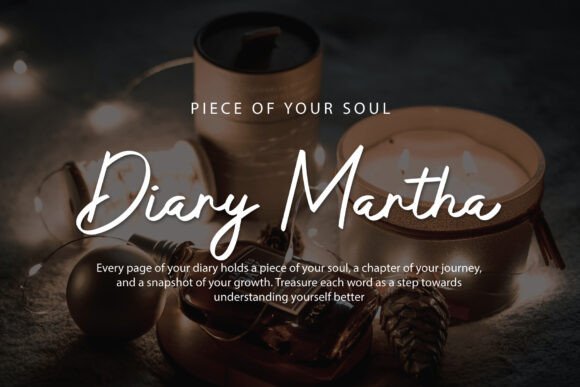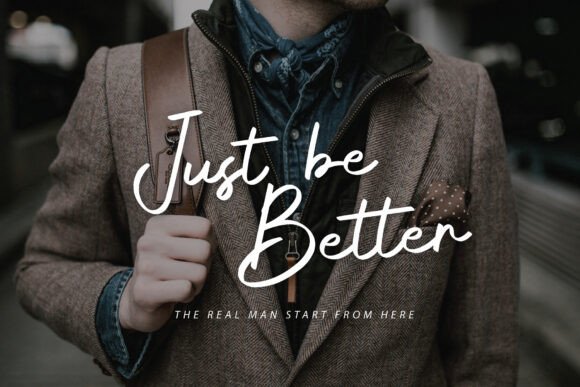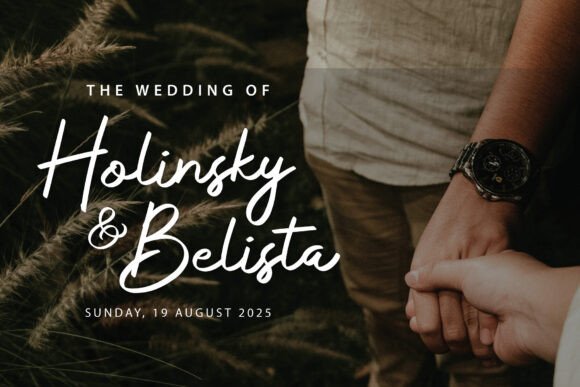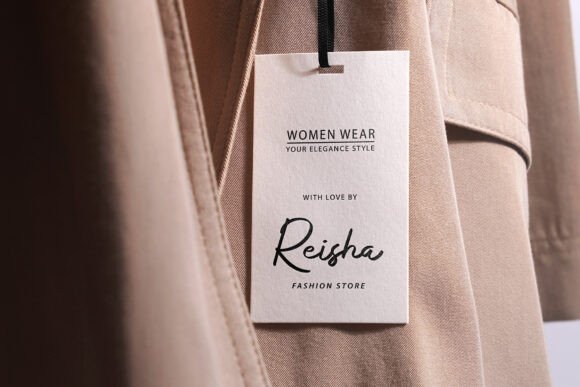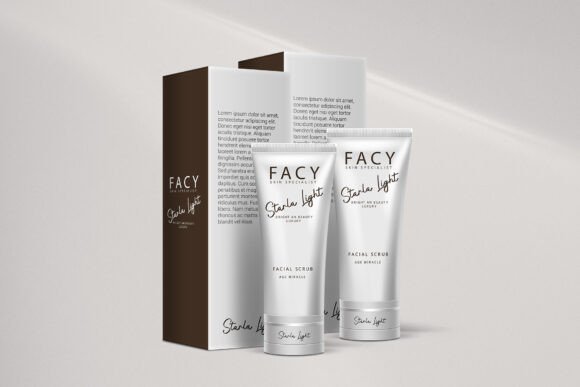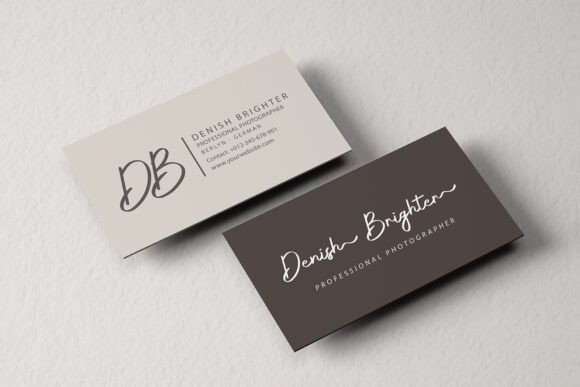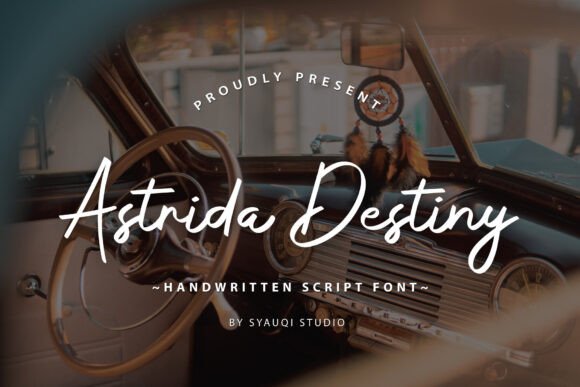
Astrida Destiny Font: Elevate Your Designs with Timeless Elegance
Are you a designer, creative, or business looking for a script font that embodies sophistication, elegance, and versatility? Look no further than Astrida Destiny, a stunning new script font that combines the best of traditional calligraphy with modern flair. In this article, we’ll introduce you to the Astrida Destiny font, exploring its features, benefits, and uses, and show you how it can elevate your design projects to new heights.
Introducing Astrida Destiny: A Masterpiece of Script Calligraphy
Astrida Destiny is a beautiful script font designed with meticulous attention to detail, blending fluid, organic strokes with a touch of modernity. This typeface seamlessly merges timeless elegance with contemporary sophistication, making it perfect for a wide range of design applications. Whether you’re creating wedding invitations, branding materials, elegant signage, or editorial layouts, Astrida Destiny is the ideal choice for designers and crafters seeking to add a touch of luxury and exclusivity to their work.
Key Features of Astrida Destiny Font
- Timeless Elegance: Astrida Destiny boasts classic, refined letterforms that evoke a sense of serenity and sophistication.
- Versatility: This script font is highly versatile, suitable for a wide range of design projects, from wedding invitations to editorial layouts.
- Modern Flair: Astrida Destiny features a touch of modernity, making it perfect for designers seeking to create contemporary, stylish designs.
- Fluid Strokes: The font’s fluid, organic strokes create a sense of movement and elegance, adding a touch of refinement to any design.
Benefits of Using Astrida Destiny Font
So why choose Astrida Destiny for your design projects? Here are just a few benefits of using this stunning script font:
- Elegance and Sophistication: Astrida Destiny adds a touch of luxury and exclusivity to any design, making it perfect for high-end branding, wedding invitations, and editorial layouts.
- Readability: The font’s clear, refined letterforms ensure excellent readability, even at small sizes.
- Customization: Astrida Destiny is highly customizable, allowing you to experiment with different colors, textures, and design elements to create unique and eye-catching designs.
- Time-Saving: With Astrida Destiny, you can create stunning designs quickly and easily, saving you time and effort.
Uses of Astrida Destiny Font
Astrida Destiny is an incredibly versatile font, suitable for a wide range of design applications. Here are just a few ideas to get you started:
- Wedding Invitations: Create beautiful, elegant wedding invitations that set the tone for a luxurious and unforgettable celebration.
- Branding Materials: Use Astrida Destiny to create stunning branding materials, such as logos, business cards, and letterheads, that exude sophistication and elegance.
- Elegant Signage: Create eye-catching signage that showcases your brand’s personality and style.
- Editorial Layouts: Use Astrida Destiny to add a touch of luxury and sophistication to your editorial layouts, such as magazines, newspapers, and blogs.
In conclusion, Astrida Destiny is a stunning script font that offers a unique blend of timeless elegance and modern sophistication. With its fluid strokes, refined letterforms, and versatility, this font is perfect for designers, creatives, and businesses seeking to add a touch of luxury and exclusivity to their design projects. Whether you’re creating wedding invitations, branding materials, elegant signage, or editorial layouts, Astrida Destiny promises to transform ordinary text into a visual masterpiece, capturing the essence of a serene and captivating paradise in every stroke.